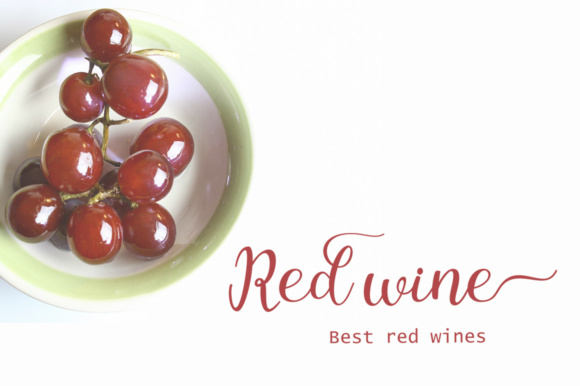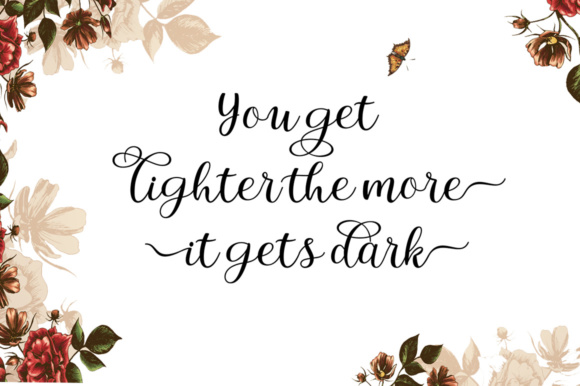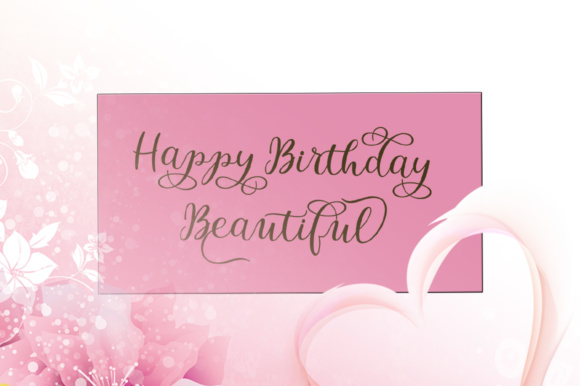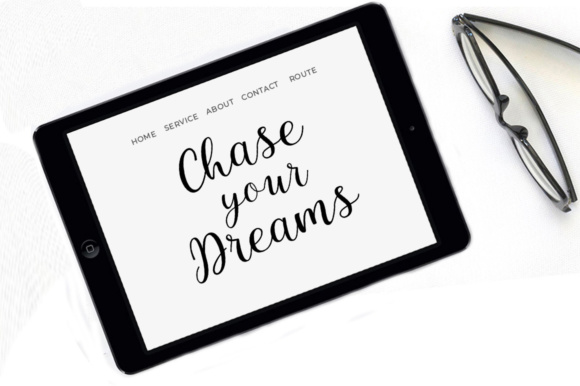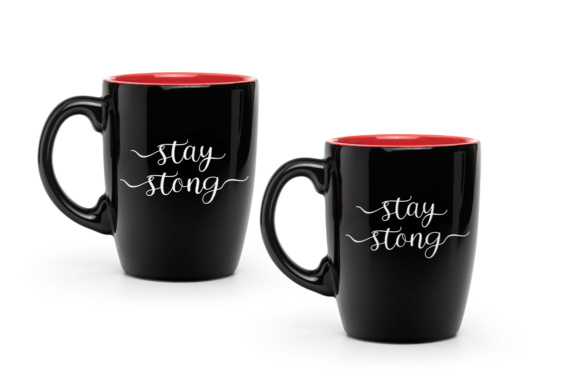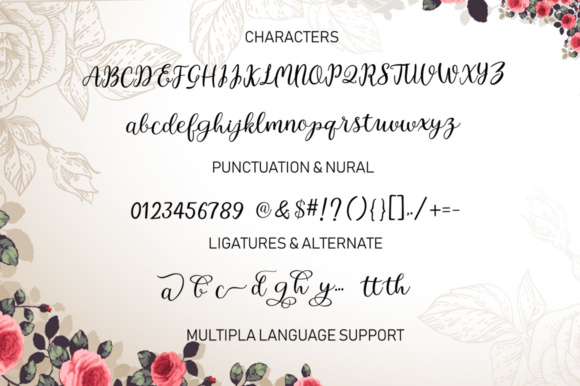
Intybus Script Font
About Intybus Script Font
The Intybus is a new, modern script font. It has an irregular baseline and a trendy and feminine style. It’s great for using in ink or watercolor.